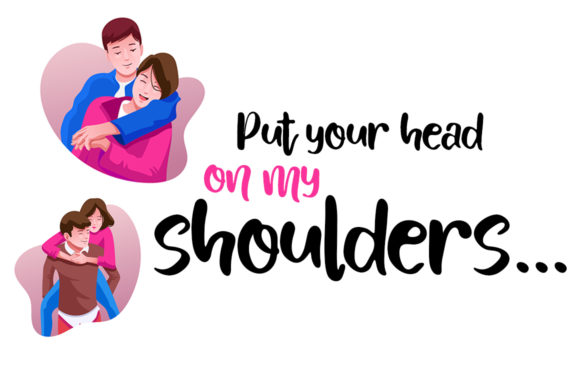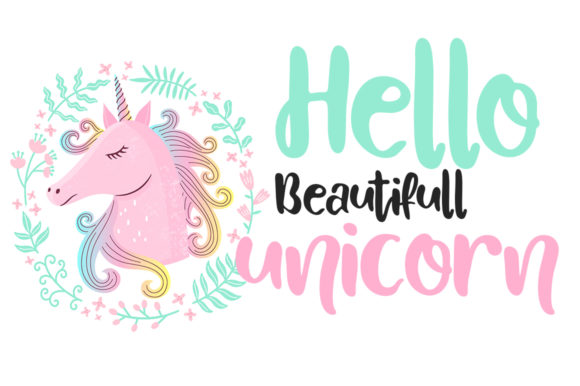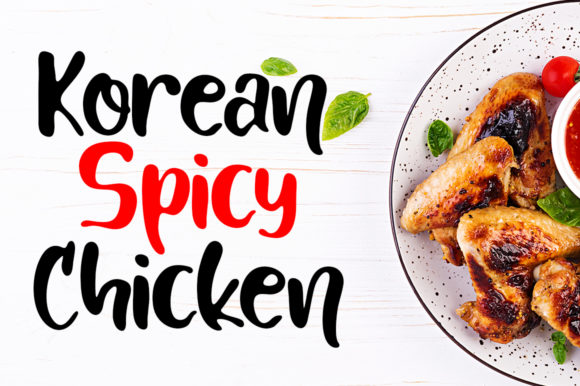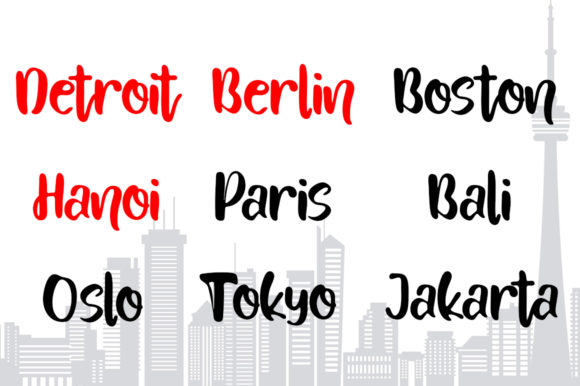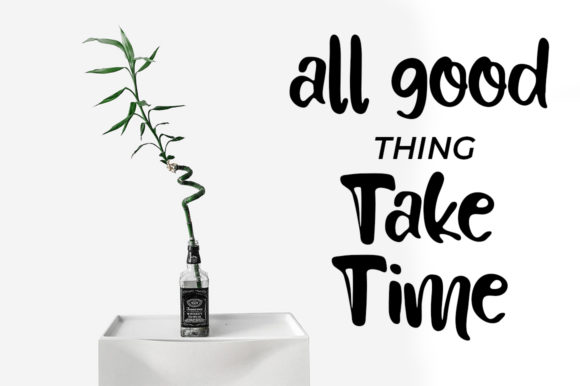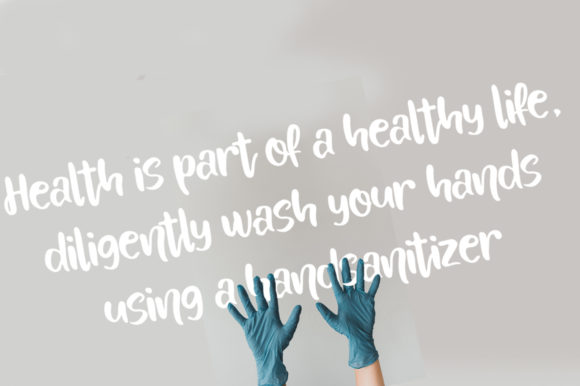
About Pasta Italiano Font
Pasta Italiano is a sweet and tasty handwritten font. It has a delicious flow, which will make each of your designs come alive.